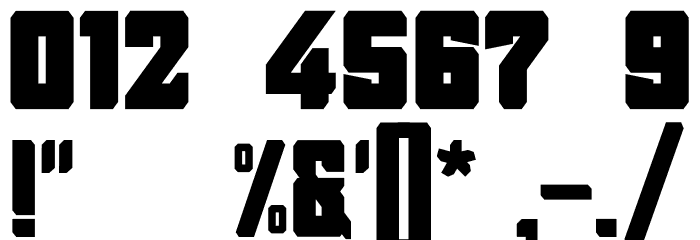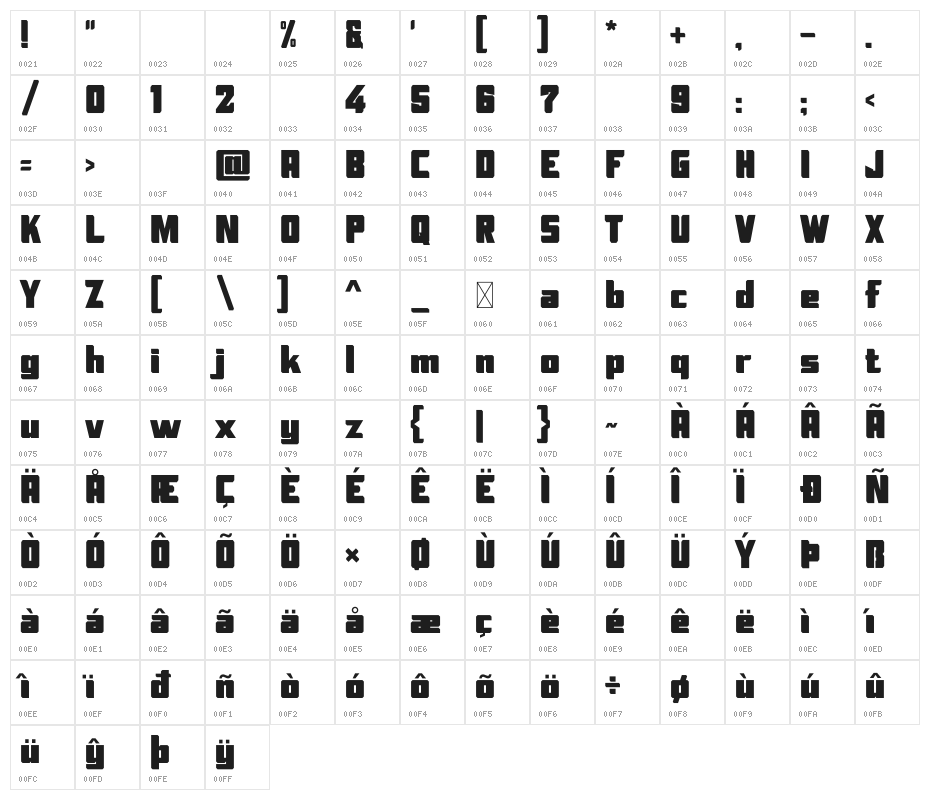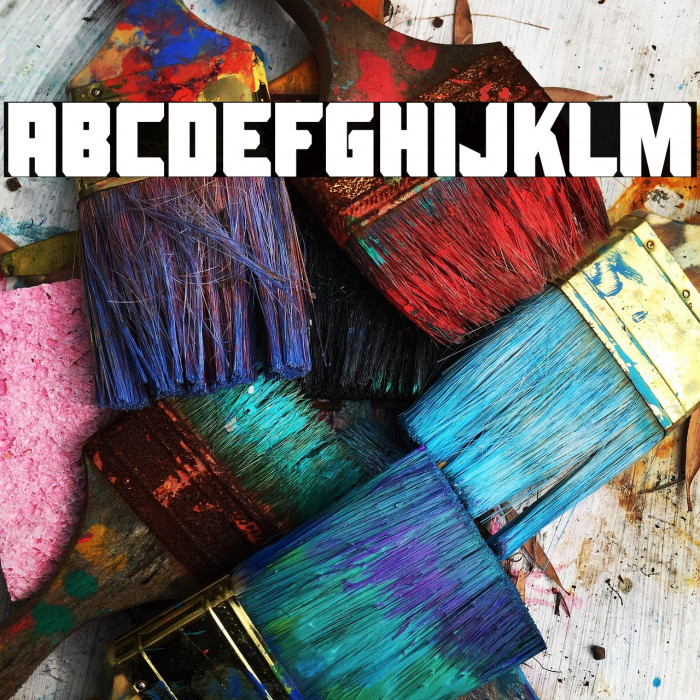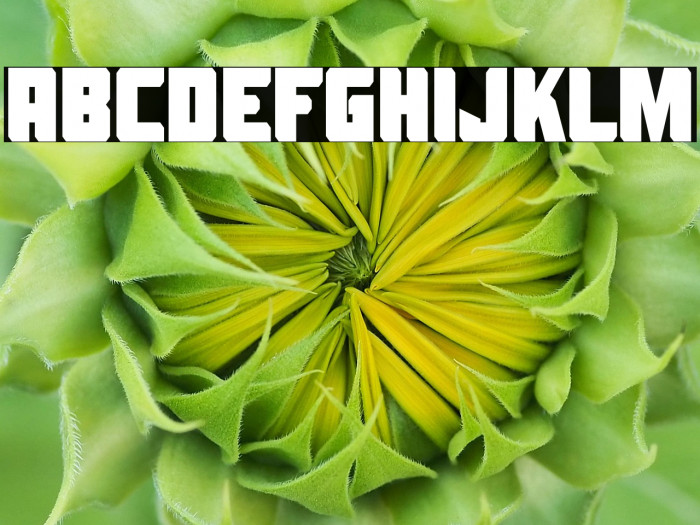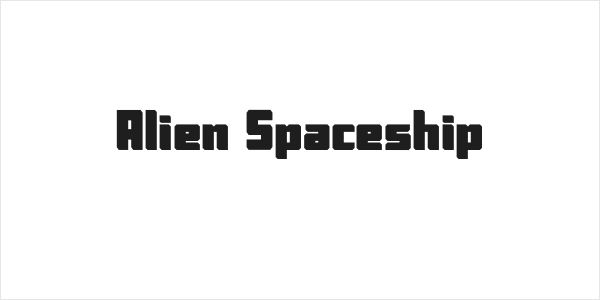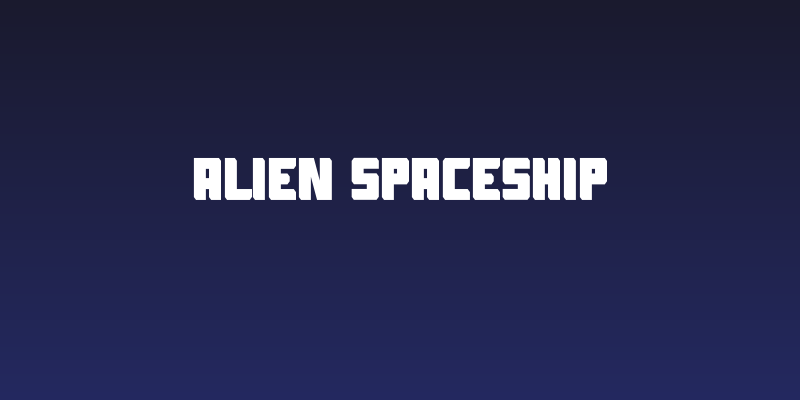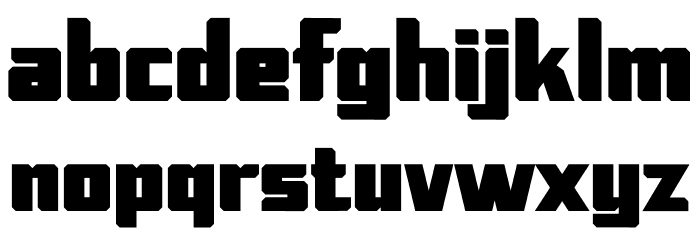
Alien Spaceship Font
Alien Spaceship Description
This font features a bold, geometric style with strong, angular lines and a futuristic aesthetic. The characters are uniformly thick, giving them a robust and impactful presence. The uppercase and lowercase letters maintain a consistent height, creating a cohesive look across the alphabet. The numbers and special characters follow the same design principles, ensuring uniformity throughout. The overall appearance is modern and slightly industrial, making it suitable for projects that require a strong visual impact.
| Proposed Projects | Ideal for sci-fi themed designs, video game titles, posters, and branding that requires a modern and bold look. |